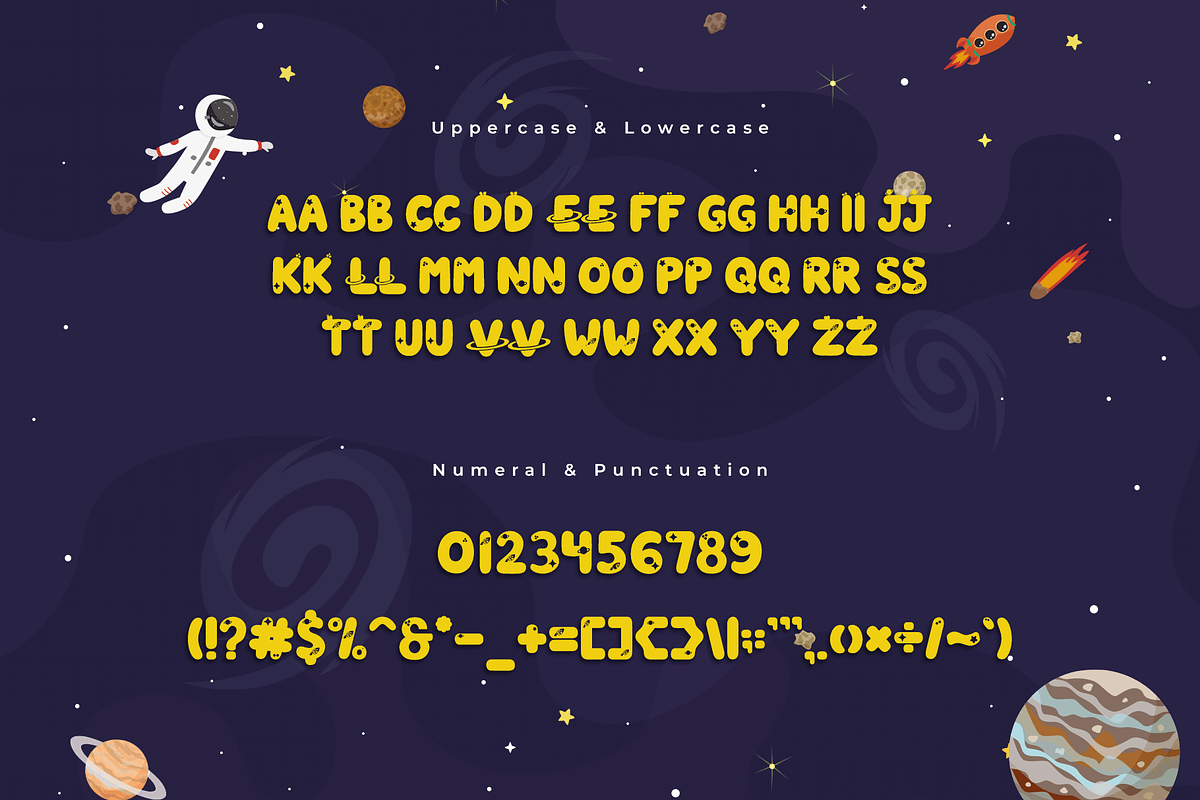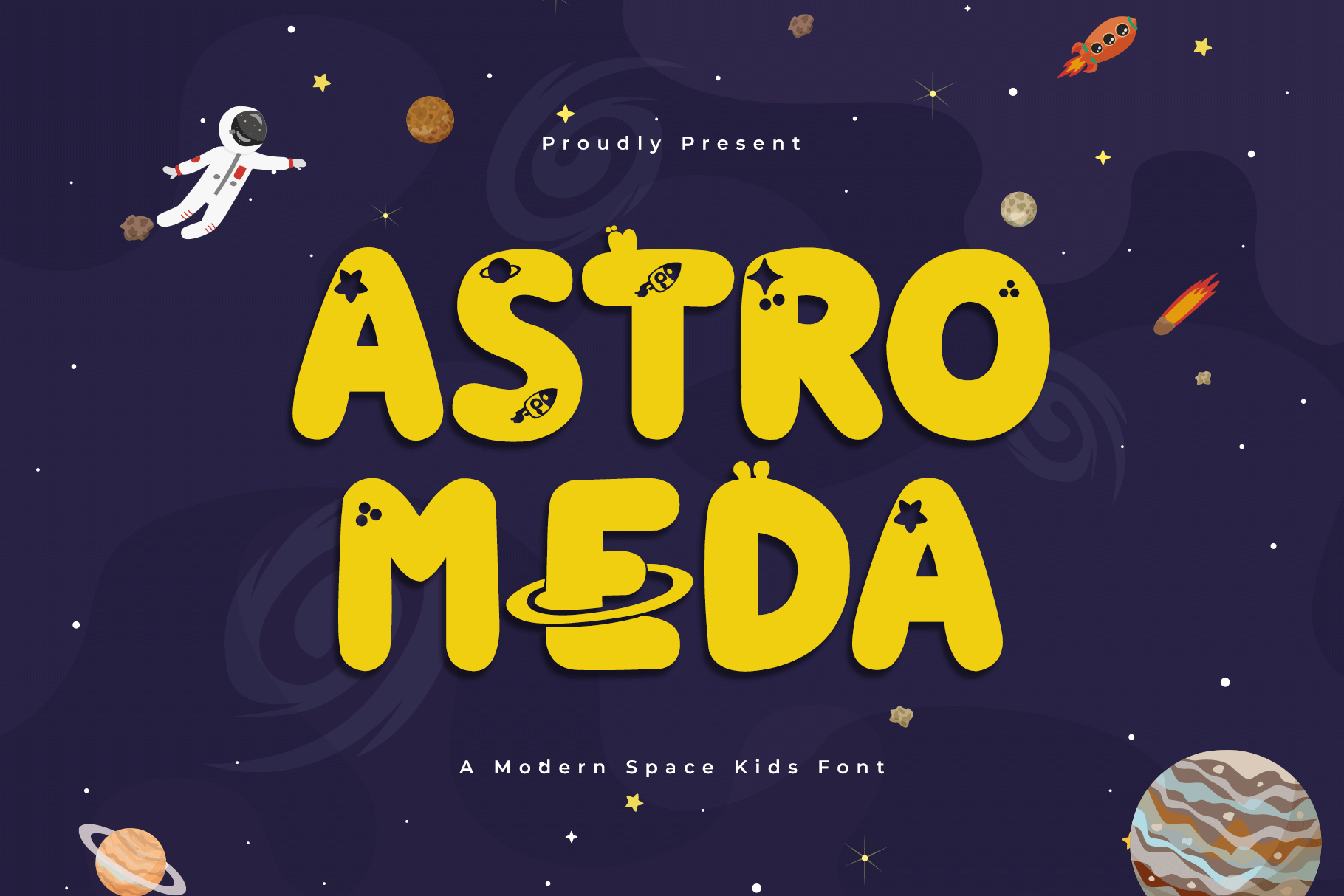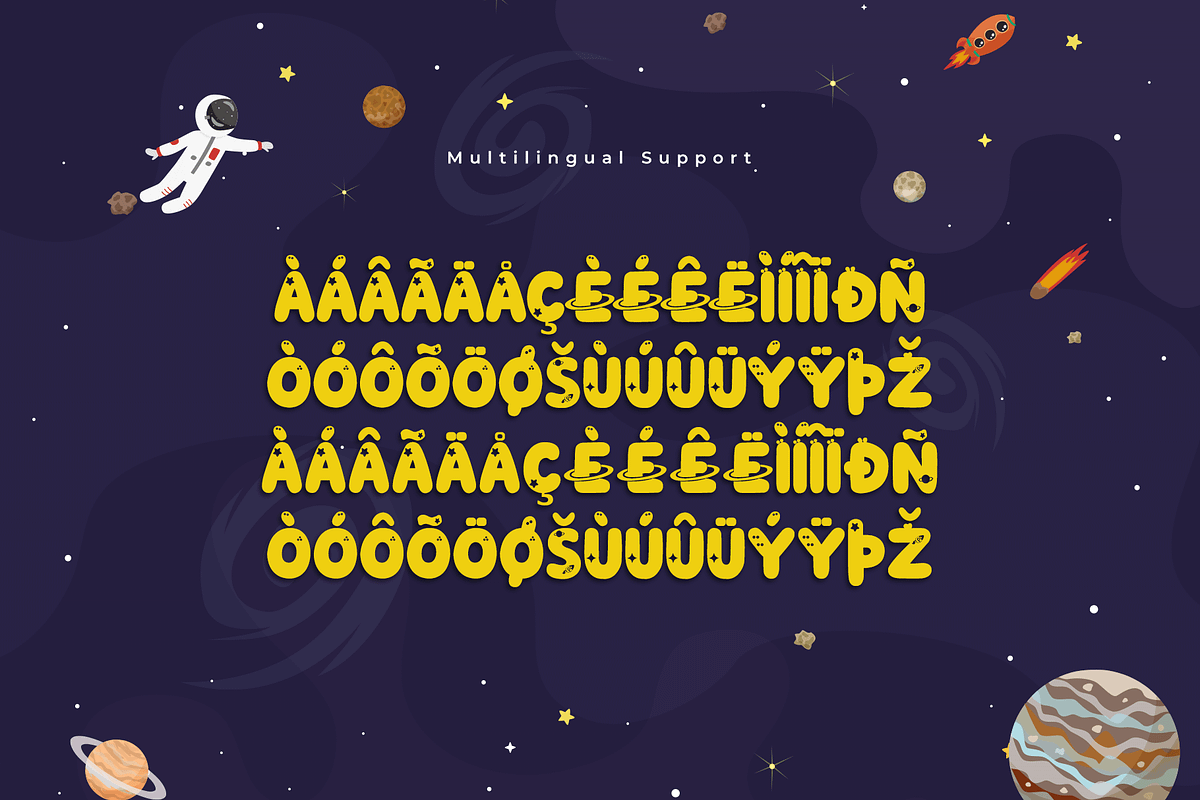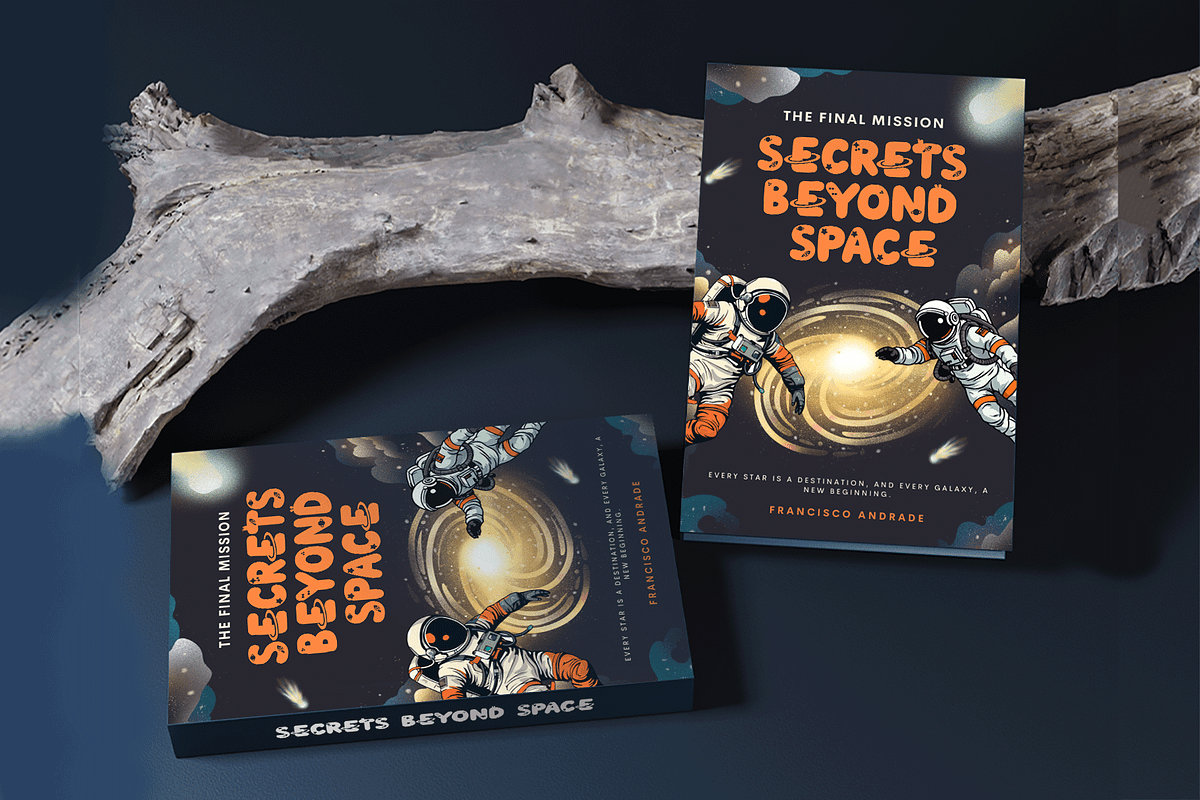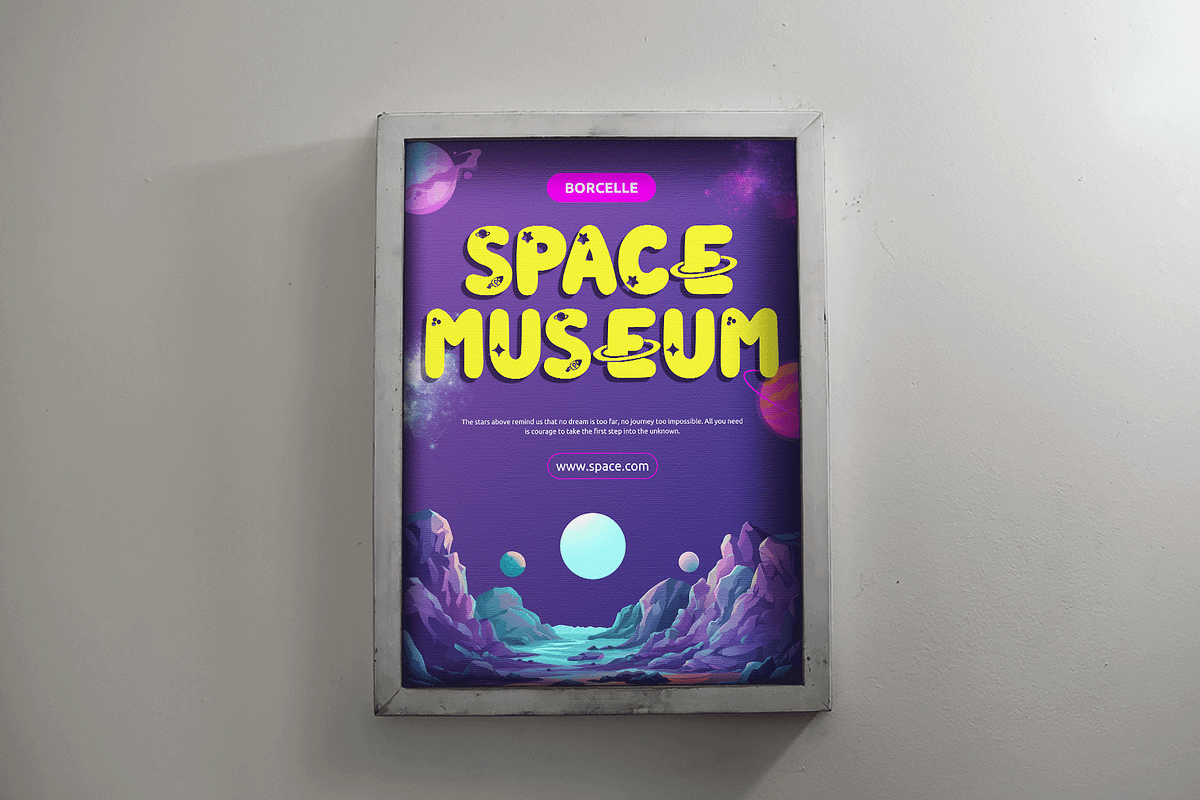
Astromeda - A Modern Space Kids Font
Let creativity soar with Astromeda, a modern and playful font inspired by the mysteries of the galaxy. Designed with kids in mind, this typeface features bold shapes and quirky letterforms, perfect for space-themed activities, posters, science projects, and branding.
Complete with multilingual support and stylistic alternates, Astromeda makes every design feel like an interstellar journey. Whether it’s for playful packaging or educational content, this font brings a universe of fun and excitement to your creations.